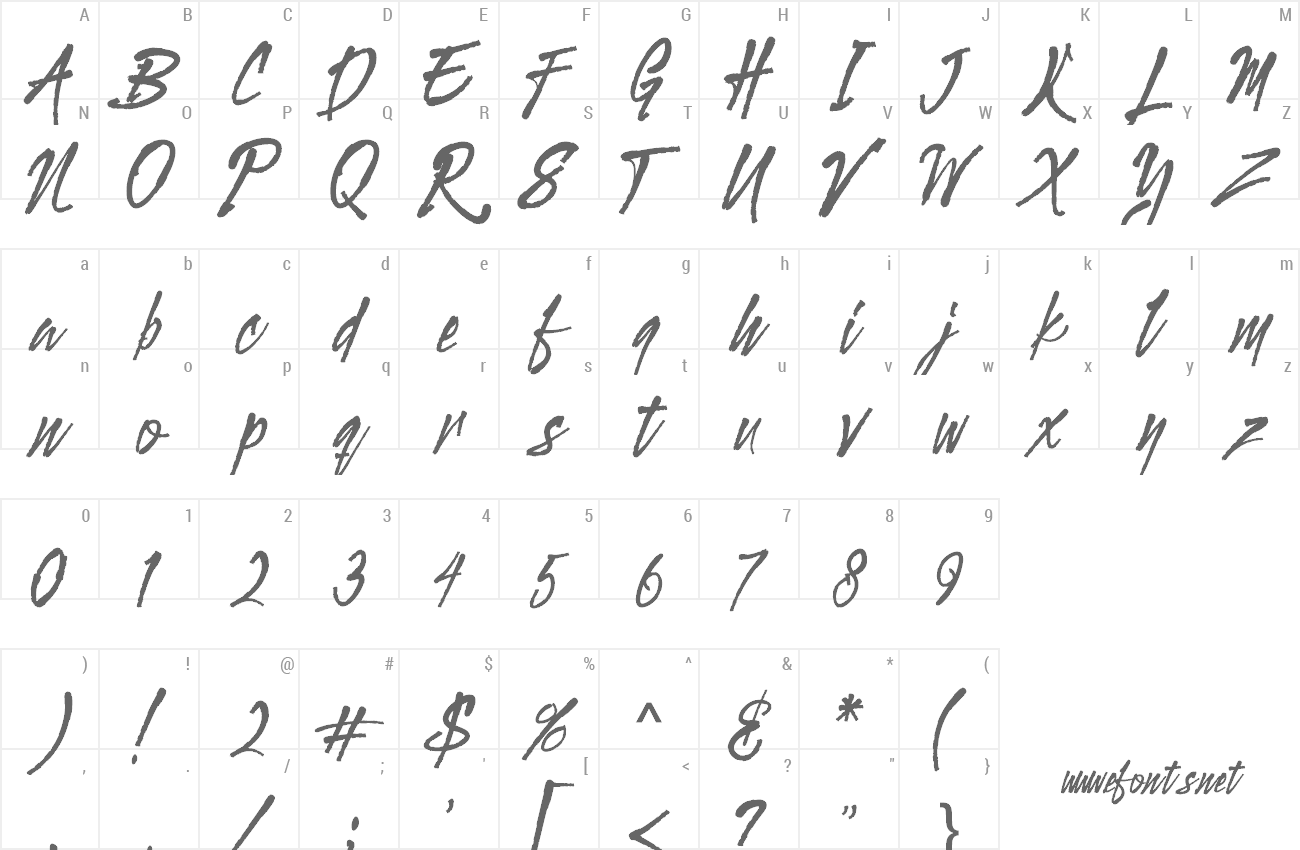
Gloucester Brush Script Inspired by Lifestyle with trend typography. I combine with my Hand Lettering style. made with personal touch every single curve. I hope this can make inspire you from your work. and a very bouncy baseline It has a perfectly paired complimentary marker font, and a super handy set of bonus Swash. Ideal for logos, handwritten quotes, product packaging, header, poster, merchandise, social media & greeting cards. Link to purchase the full version and commercial license:https://www.creativefabrica.com/product/gloucester-script/ Note: This font free for personal use! More info contact: nemo.erwanto@gmail.com Thank you |